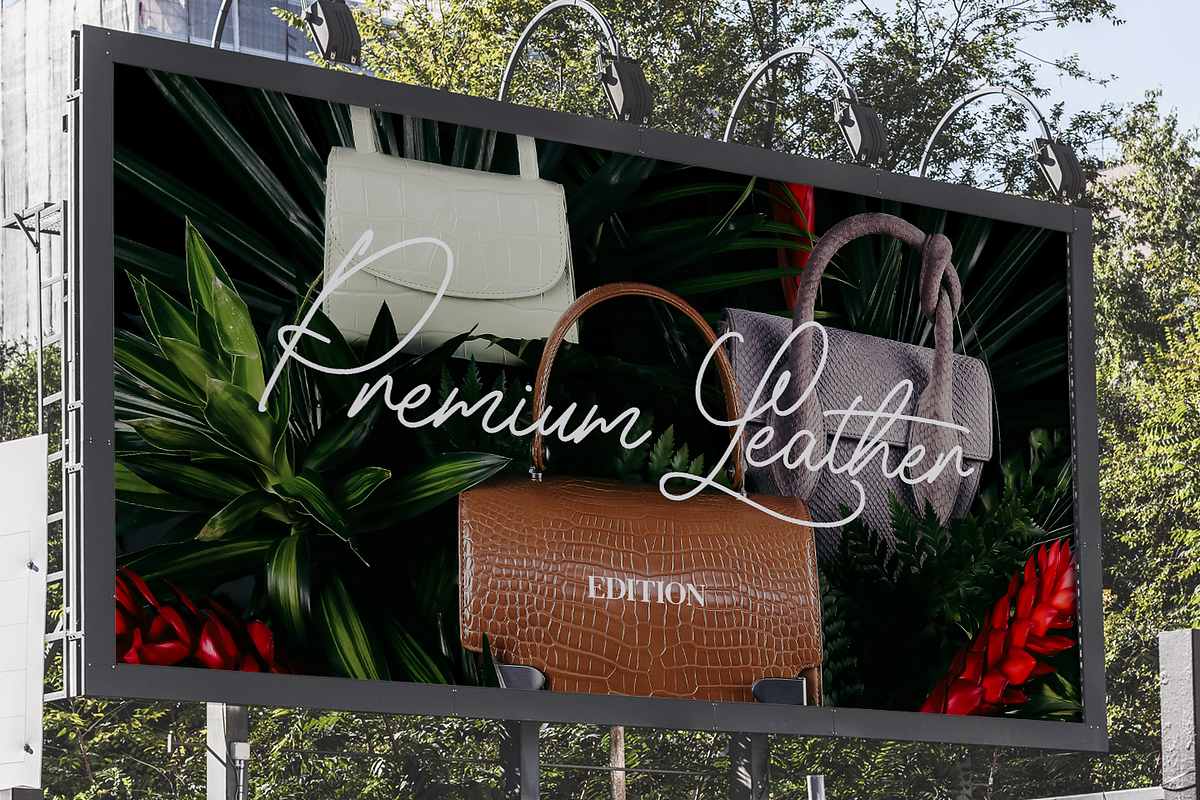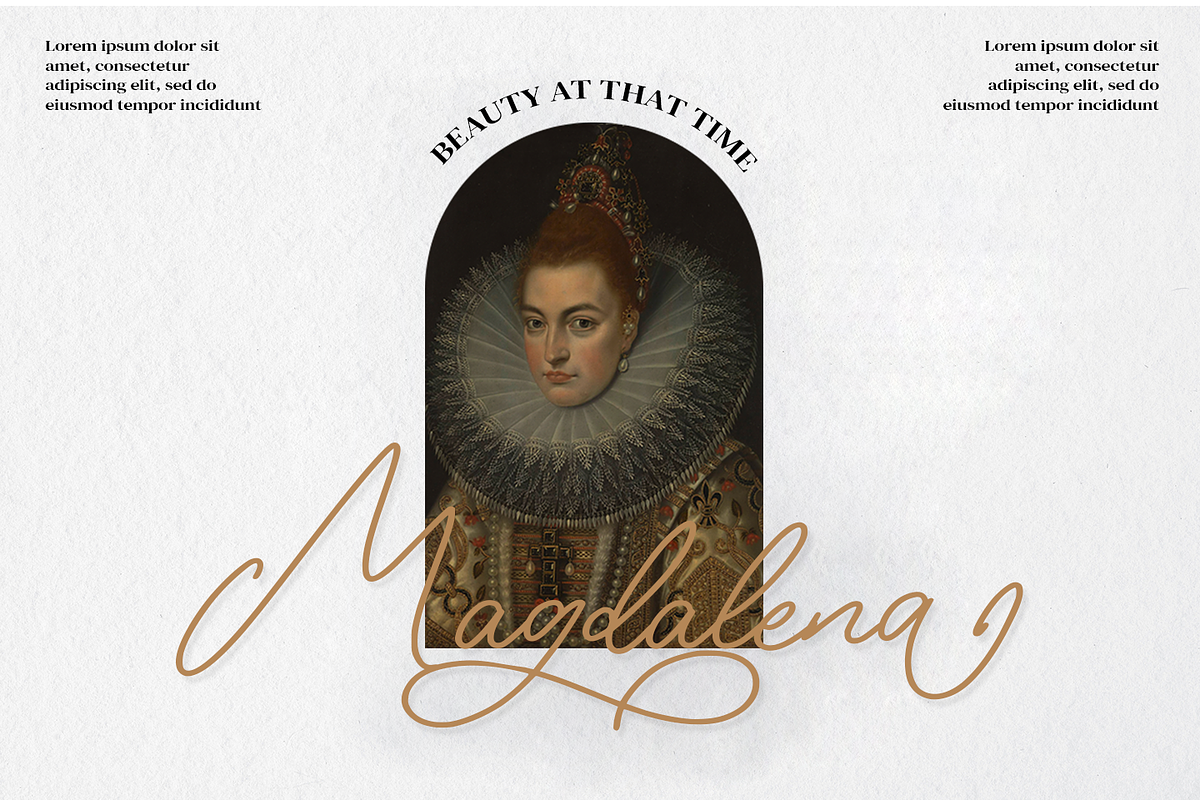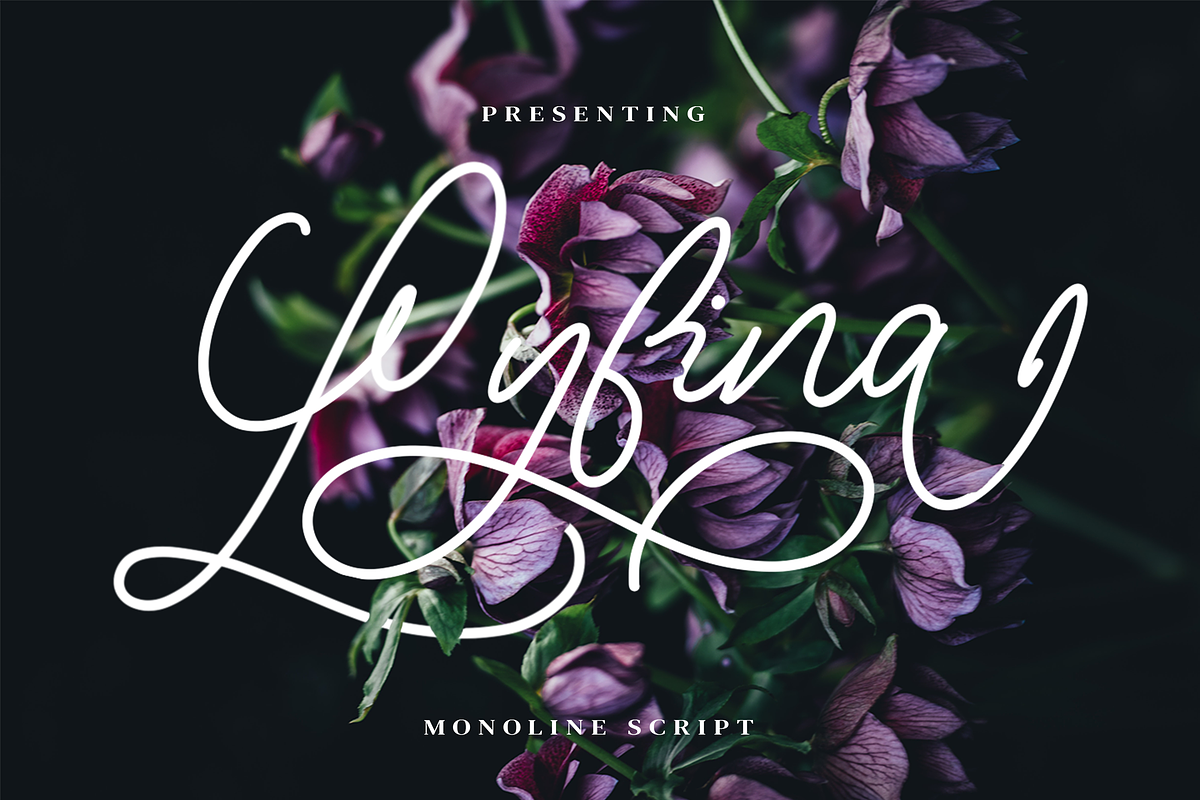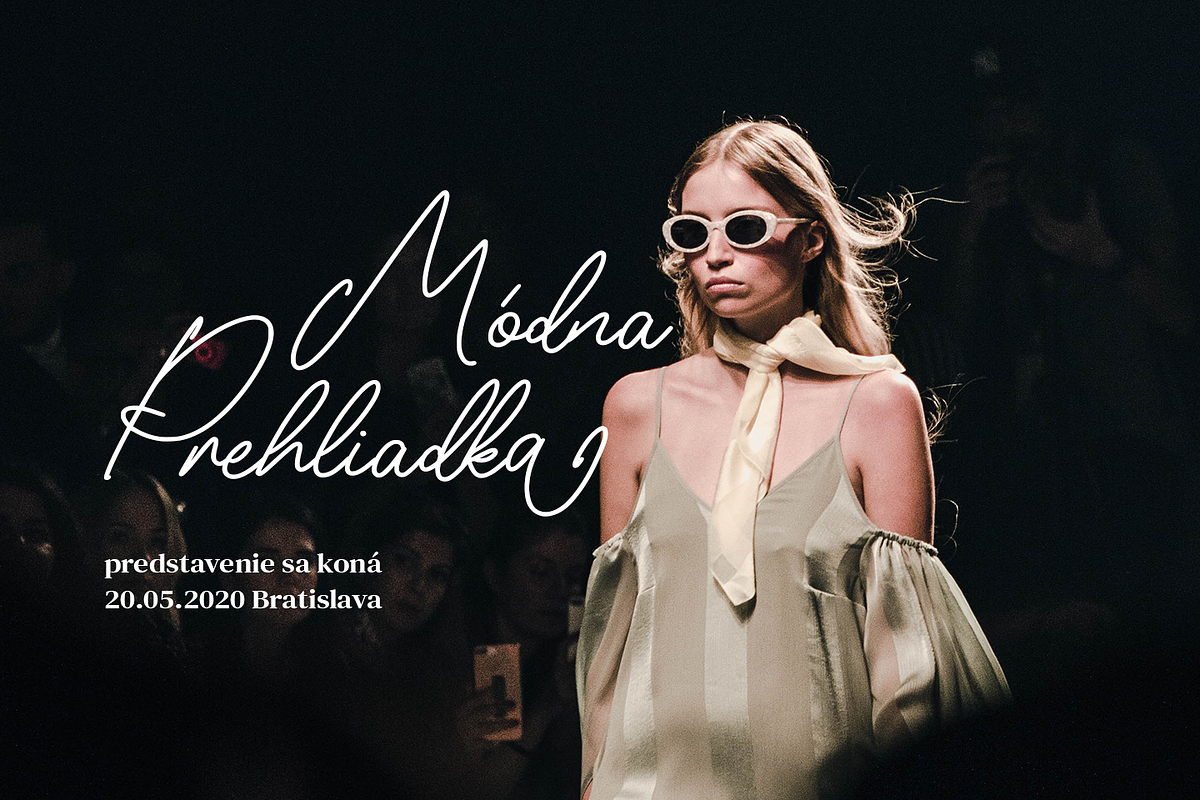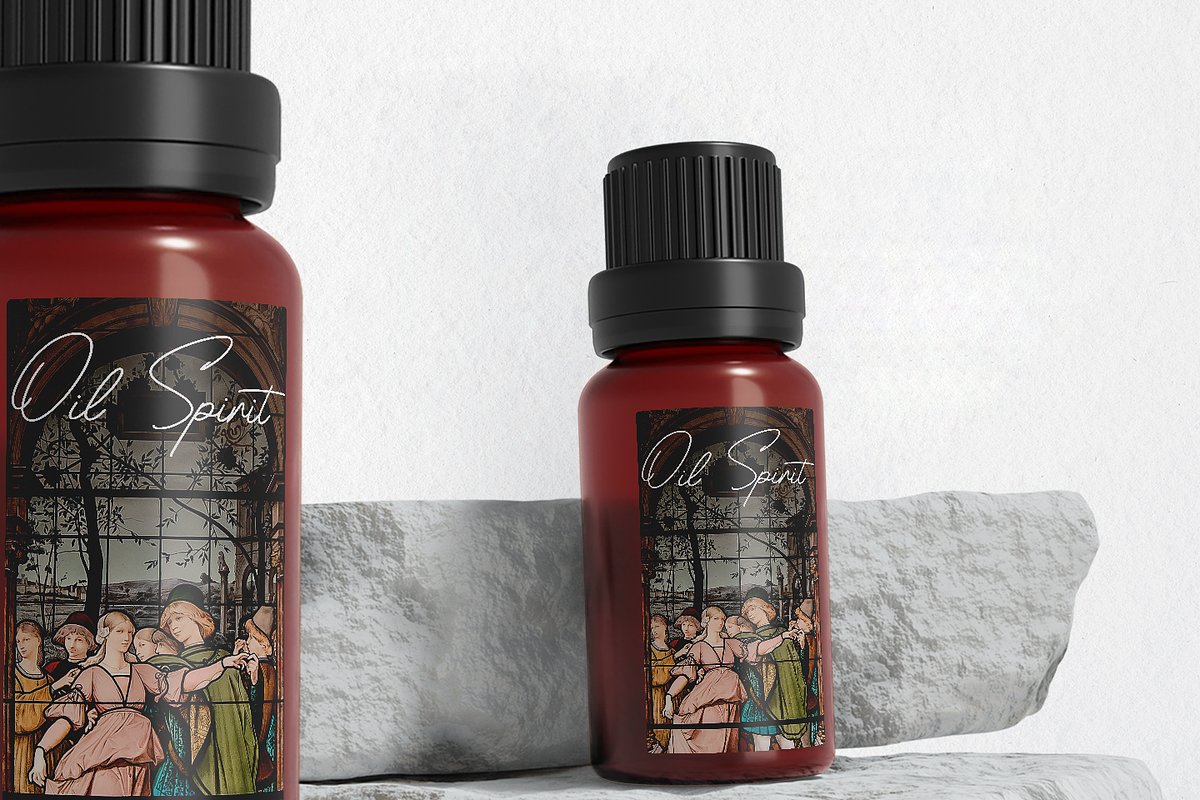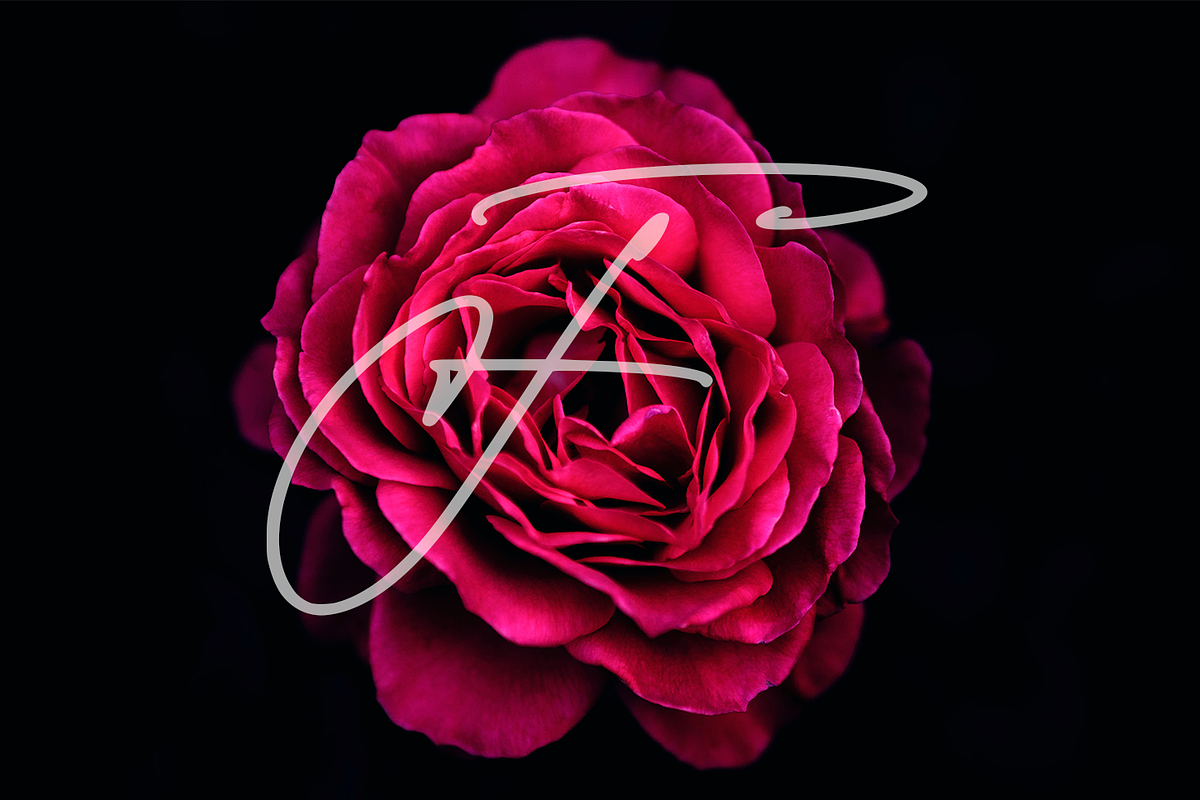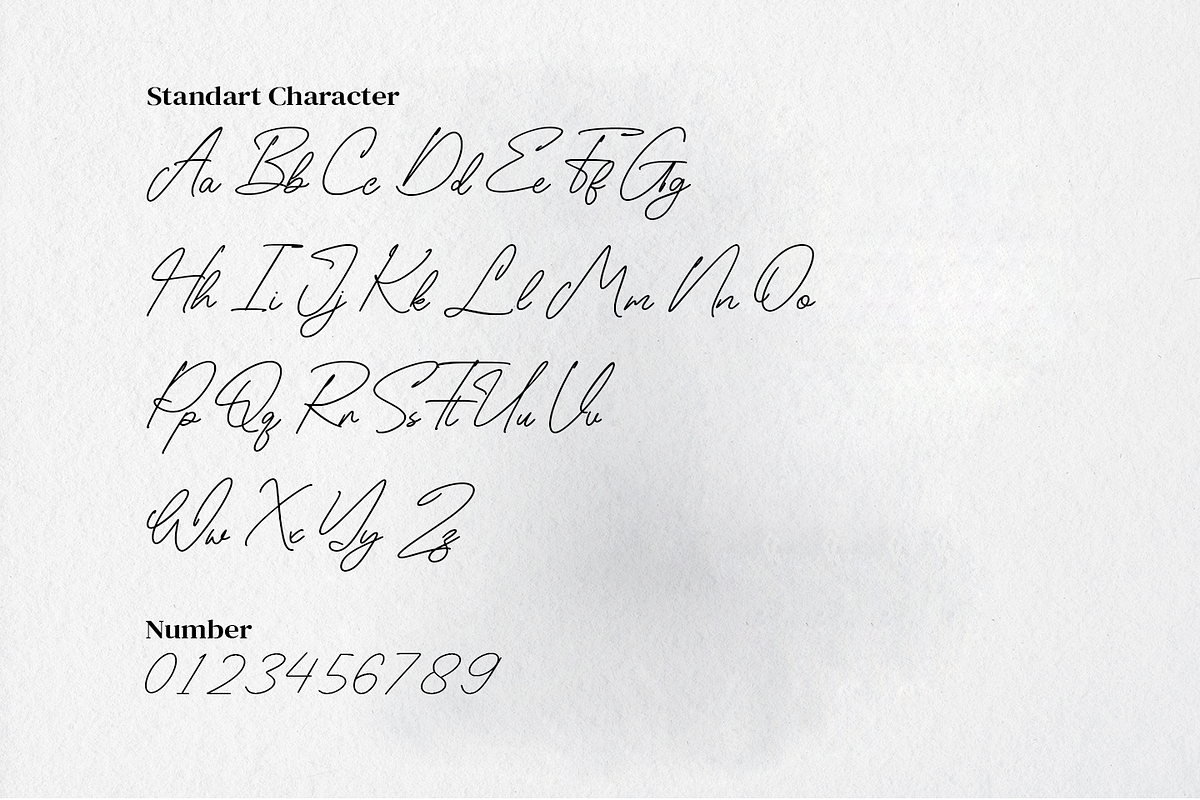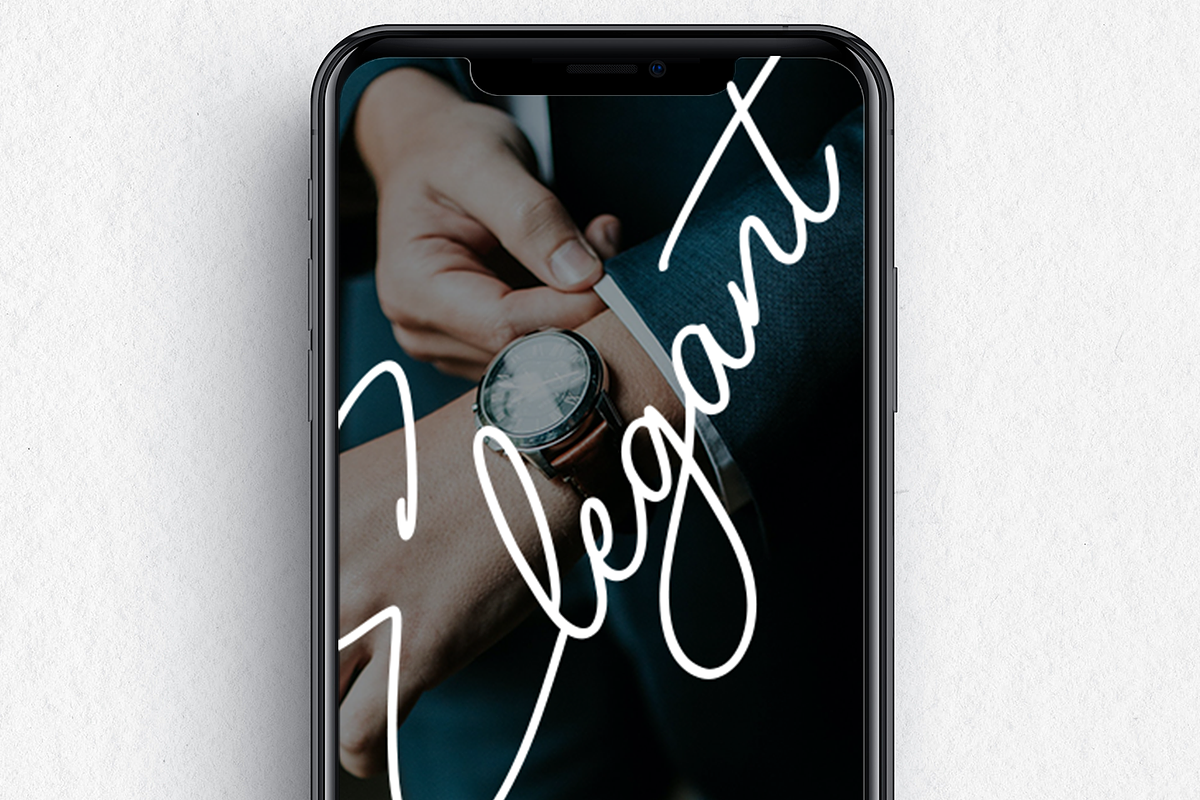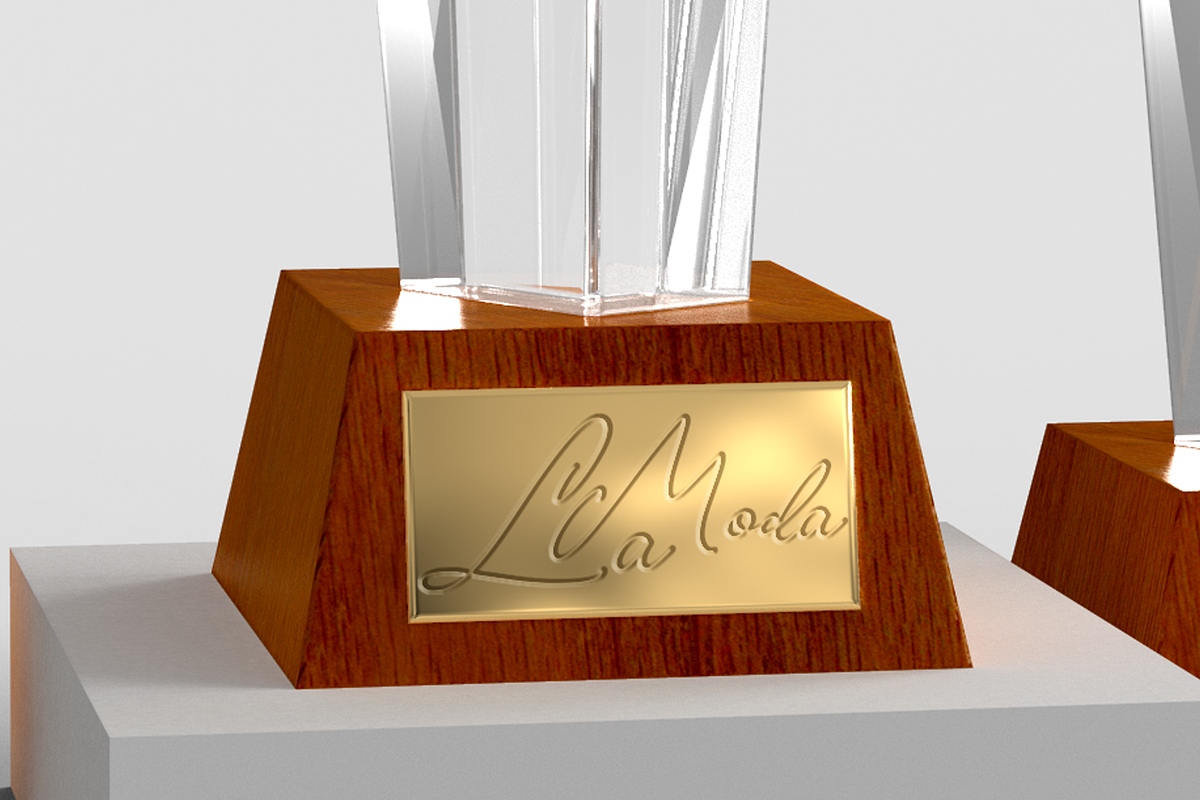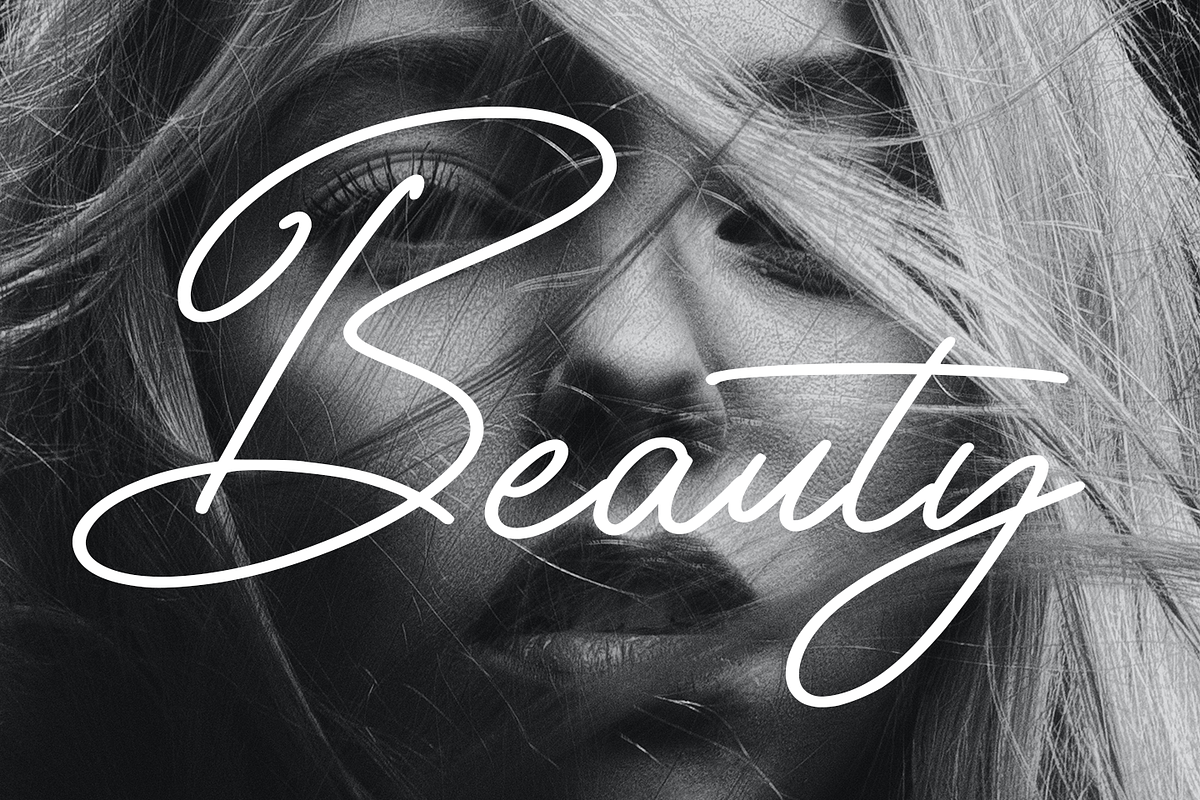
Lyfina Spring Monoline Script
Lyfina is presented similar to spring. Where everything seems to come back to life but with an organic rhythm. As well as the appearance of the letters, which are shaped with indentations that bloom in each letter. As if giving hope for the presence of a warmth